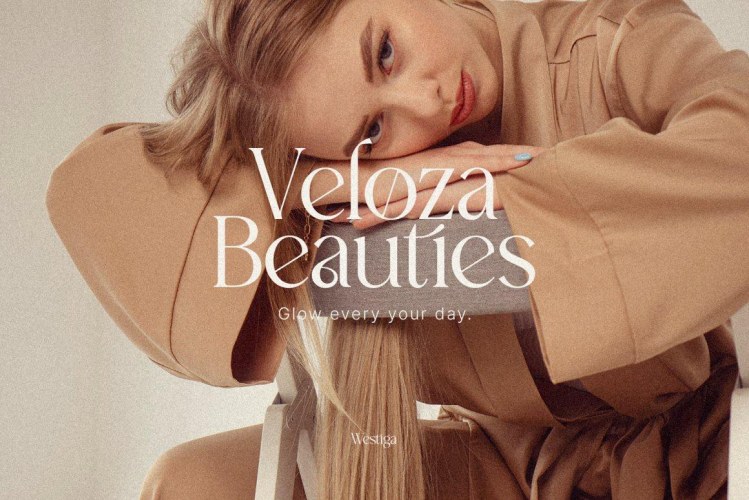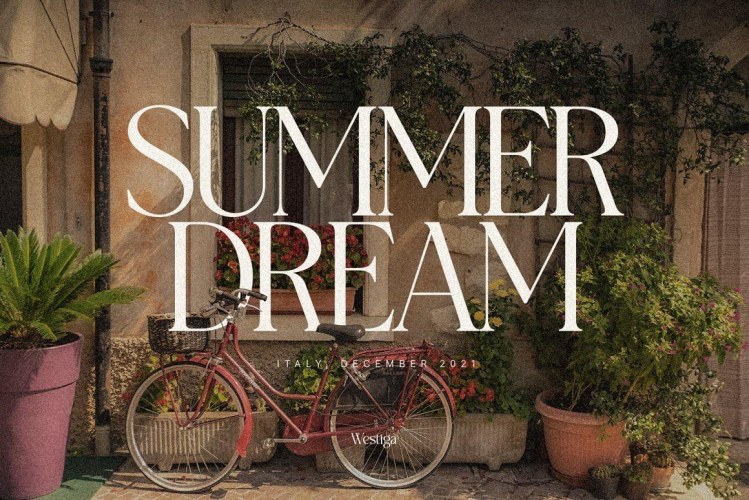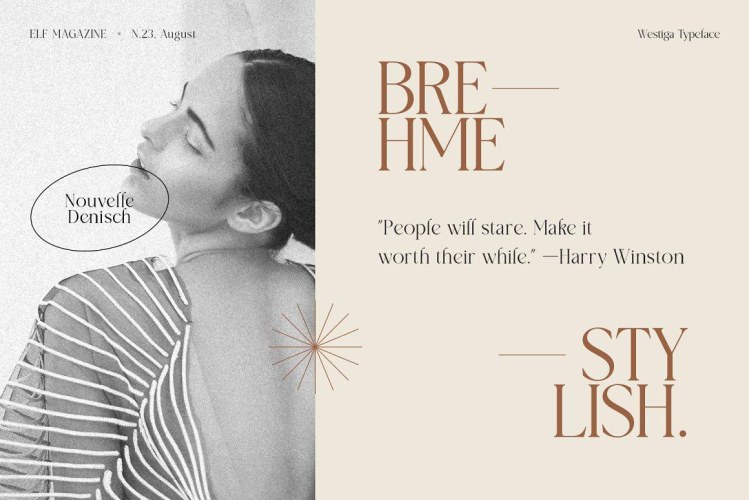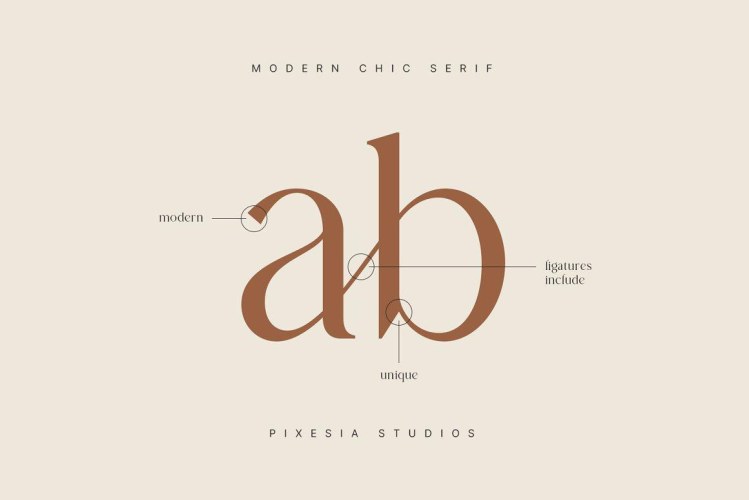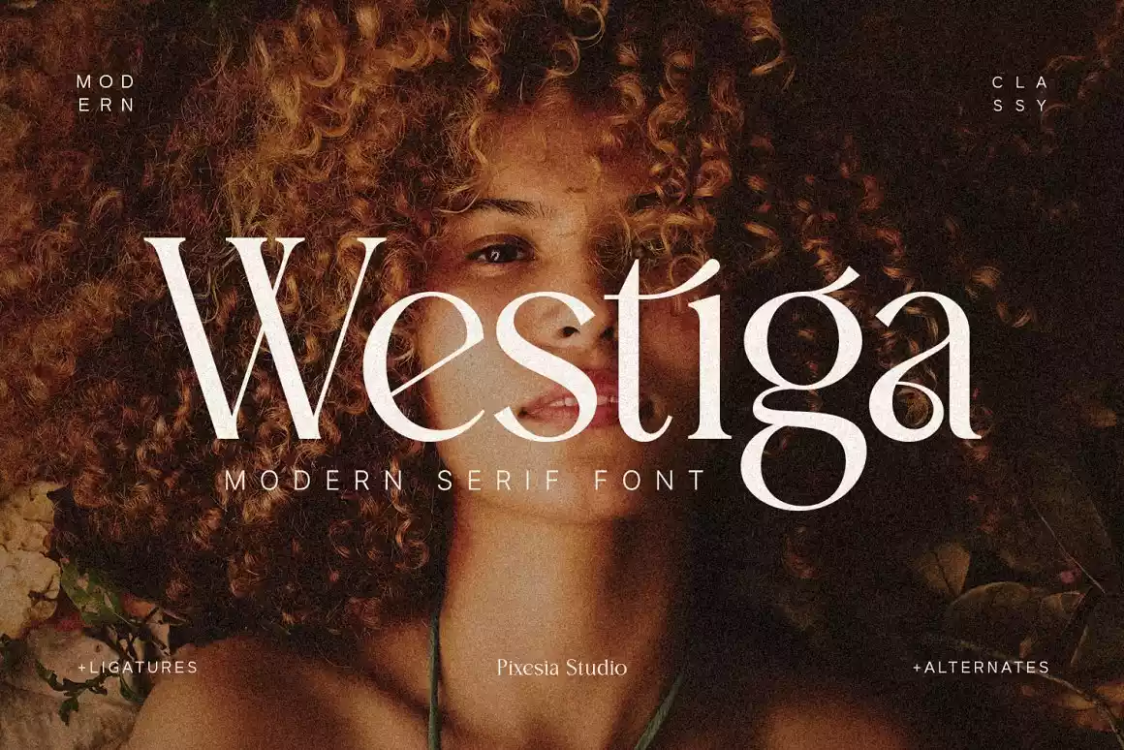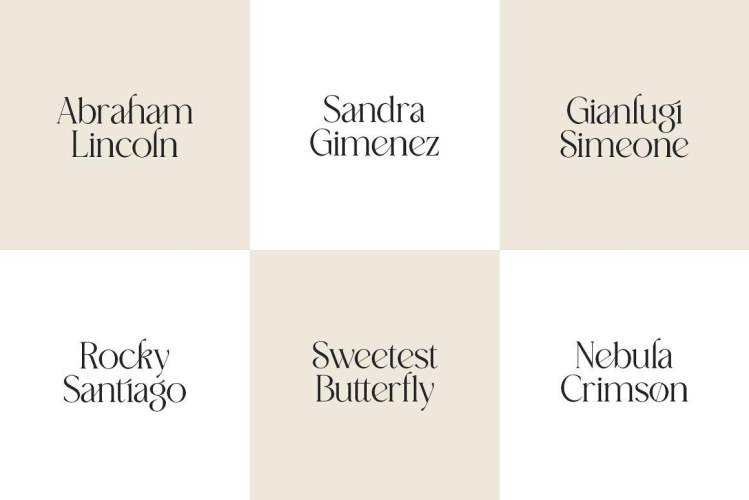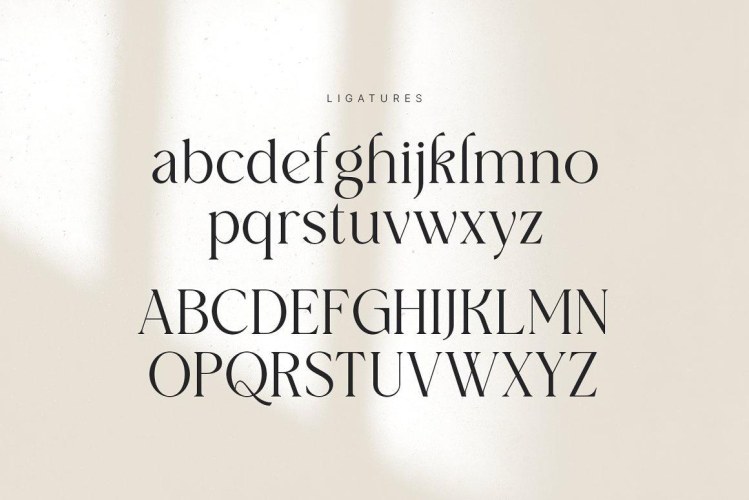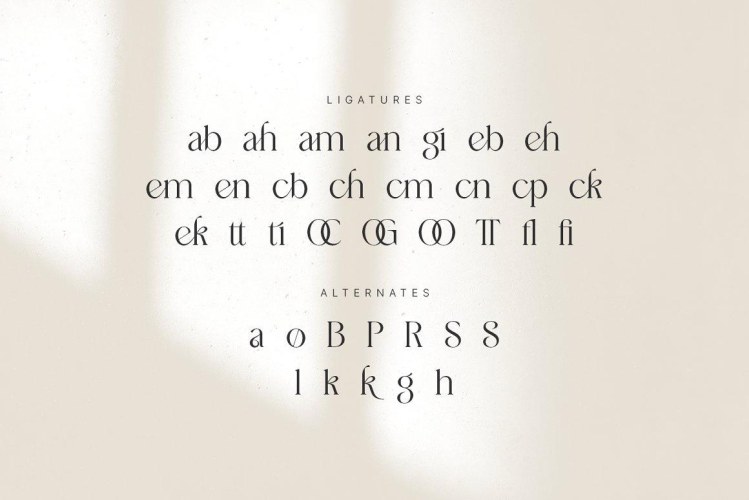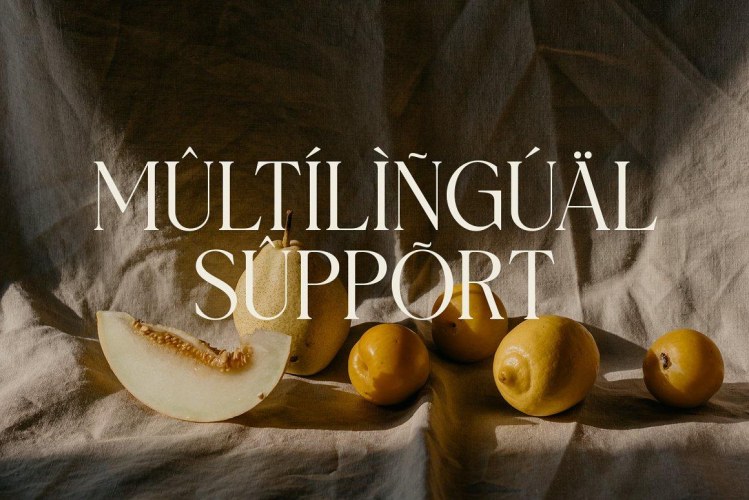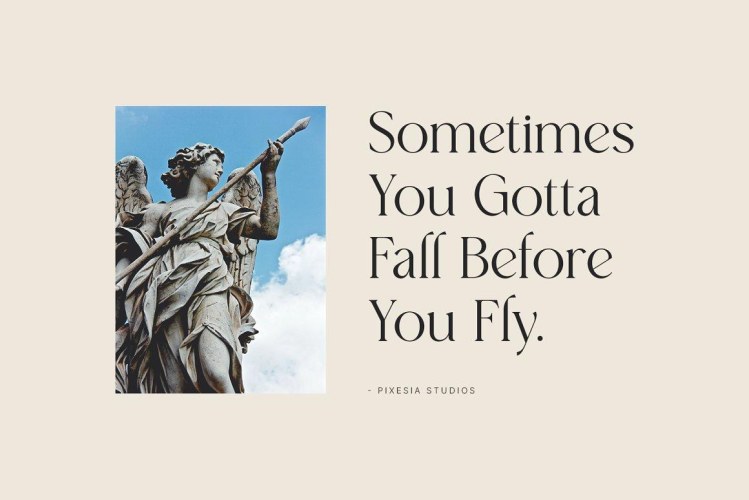
Westiga Font
Westiga is a modern and luxury serif typeface designed with beautiful crafted characters that follow the trend. It can be used for adding a unique touch to logos, heading, branding business, magazines, product packaging, invitation, monograms, merchandise, poster book title, movie title or pull quotes and so much more.
Where Westiga Font works best
Westiga Font gives long-form text a classic, trustworthy rhythm — ideal for magazine spreads, annual reports and book interiors.
Pair Westiga Font with generous letter-spacing for wordmarks in fashion, hospitality, wine and jewellery branding.
What is Westiga Font good for?
Westiga Font is a Serif Fonts typeface tagged Branding, Editorial, Modern, Packaging. It works well for headlines, logos, posters, social media graphics and branding projects that need a distinctive serif fonts look.